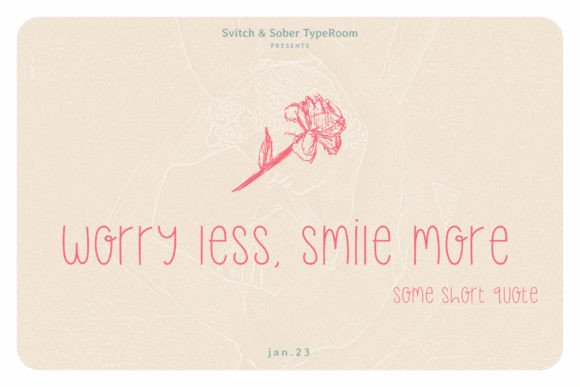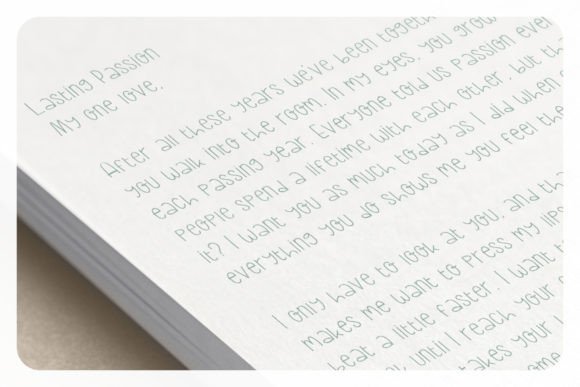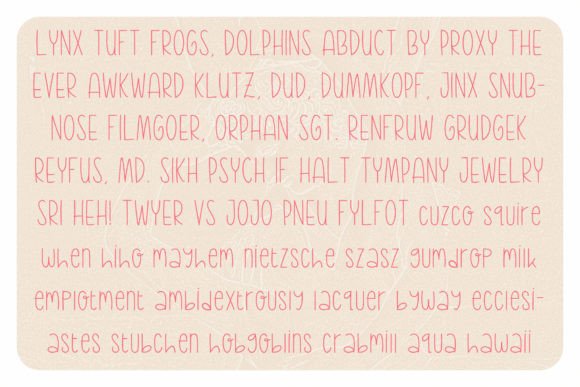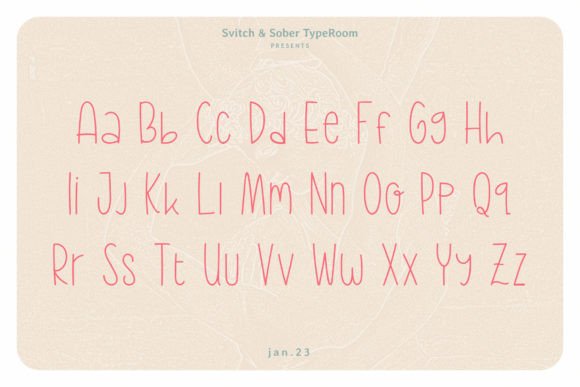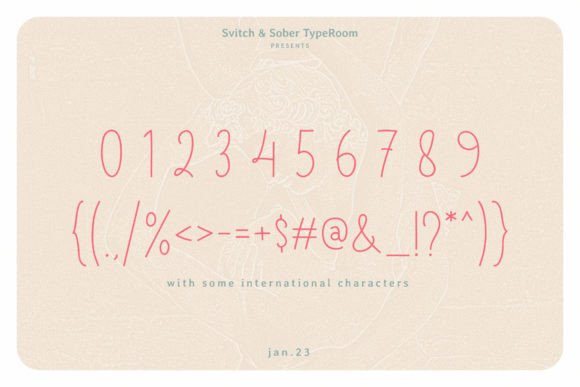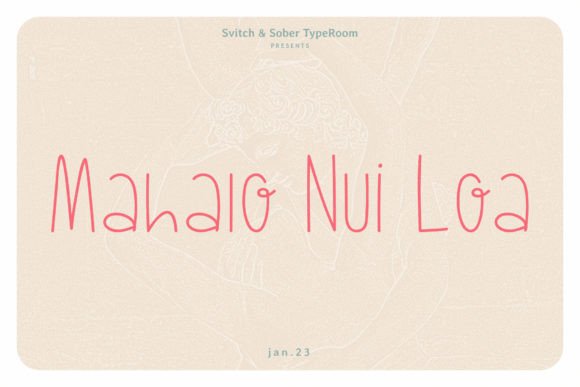
Introduction to Persefone Font
Have you ever stared at a blank page, wondering how to bring your creative project to life? The blank slate can be intimidating, but it’s in these moments that the perfect design resource can make all the difference. For designers, finding the right font can be a game-changer, and that’s where the Persefone Font comes in.
With its delicate, handwritten style, the Persefone Font is a breath of fresh air for any design project. Its balanced characters and high-quality design make it a versatile tool that can elevate even the most innovative ideas. Whether you’re working on a free download or a high-end commercial project, this font is sure to make your designs stand out.
Key Features of Persefone Font
- Unique, elegant design perfect for creative projects and design resources.
- Features a transparent background, ideal for use on images with complex backgrounds or for creating stunning visual effects.
- High-quality font with a resolution of 300 DPI, ensuring crisp and clear text rendering.
- Comes in a range of font sizes, from 12 to 72 points, making it suitable for various design applications, including headings and body text.
- Designed to be versatile and adaptable, the Persefone Font is perfect for use in a wide range of creative projects, from branding and marketing materials to digital products and print materials.
- Includes a comprehensive character set, covering a wide range of languages and characters, making it an excellent choice for global design projects.
Honest Review: Persefone Font
I recently stumbled upon the Persefone Font, and I must say, it’s been a great addition to my design resources. As a designer, I’m always on the lookout for high-quality fonts that can elevate my creative projects.
- High-quality design: The Persefone Font boasts a beautiful, elegant design that’s perfect for various creative projects.
- Transparent background: The font’s transparent background makes it easy to layer and manipulate in my design projects.
- ⚠️ Limited font styles: The Persefone Font only comes in a few styles, which might not be sufficient for designers who require a wider range of options.
- ⚠️ Not ideal for large text: While the font looks great in smaller sizes, it can become difficult to read when used in larger text sizes.
Overall, I’m impressed with the Persefone Font, and I would recommend it to designers who are looking for a high-quality, elegant font for their creative projects.
The Persefone Font is ideal for a wide range of creative projects, including logos, business cards, and brochures. Its high-quality design and transparent background feature make it a versatile design resource for both digital and print media.